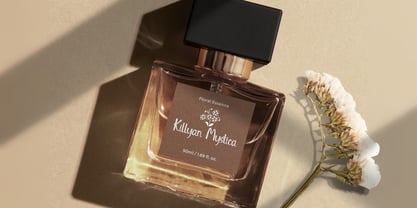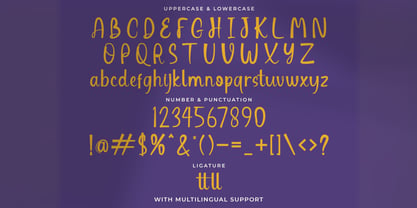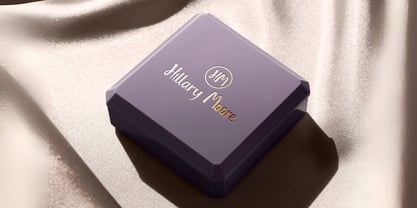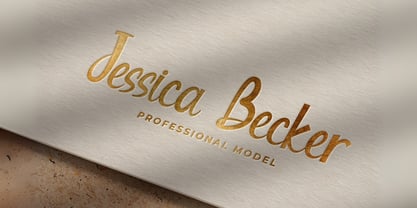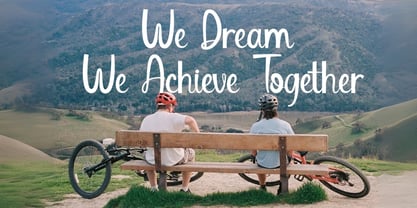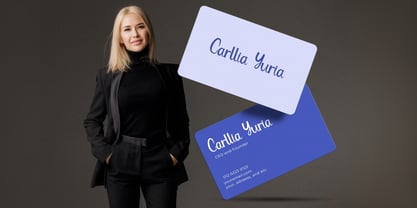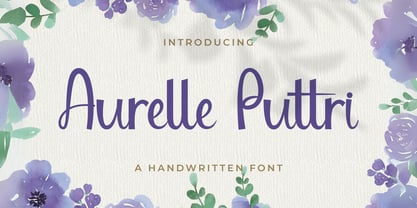
Aurelle Puttri
by Omzen Type
The Aurelle Puttri Font Family was designed by and published by Omzen Type. Aurelle Puttri contains 1 styles. More about this family
Aurelle Puttri is an elegant handwritten font which perfect for your design projects like logos, signatures, invitations, stationary, wedding photos, watermarks, social media posts, advertisements, posters, product packaging, labels, photography, event posts, and other designs.